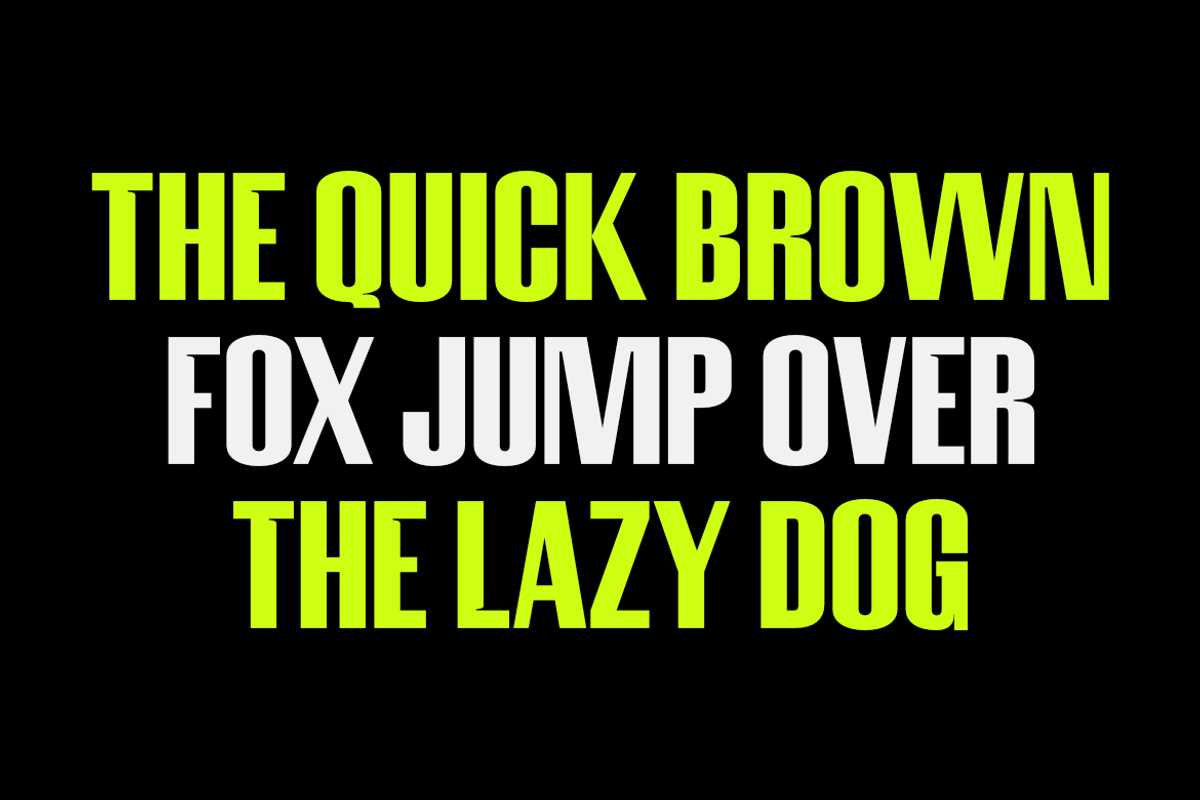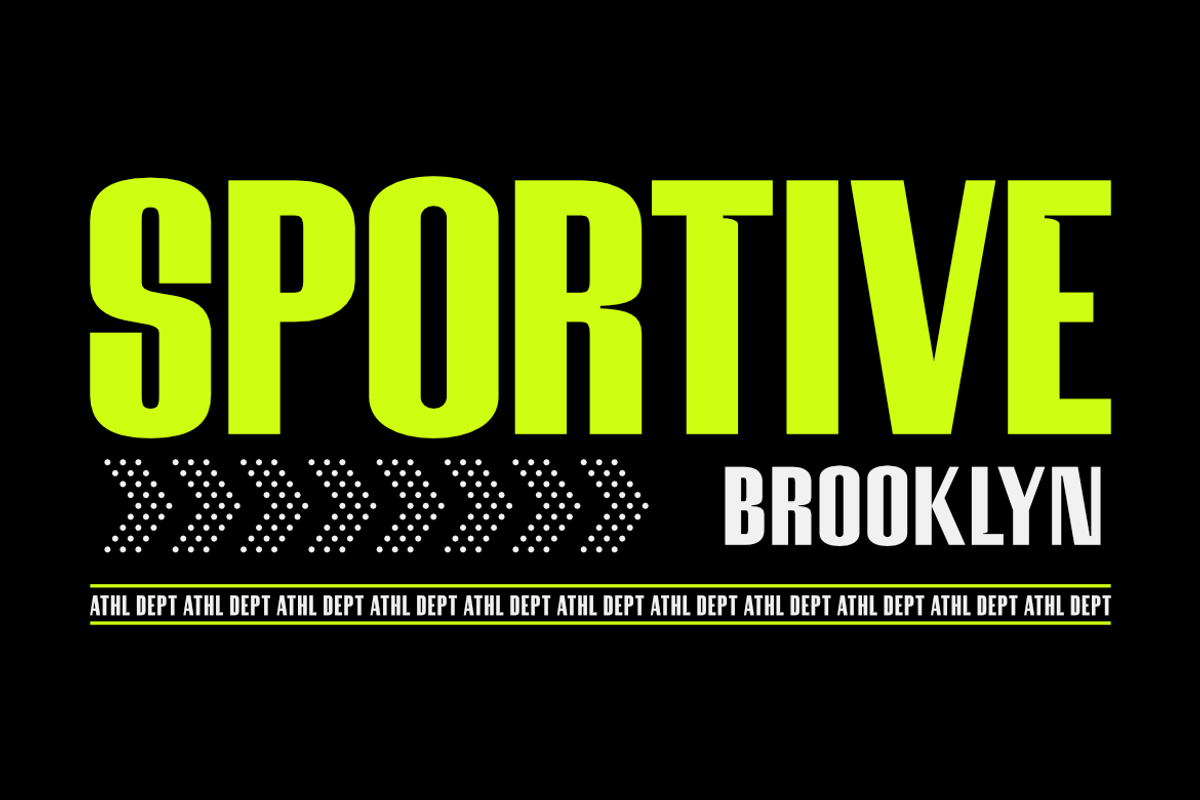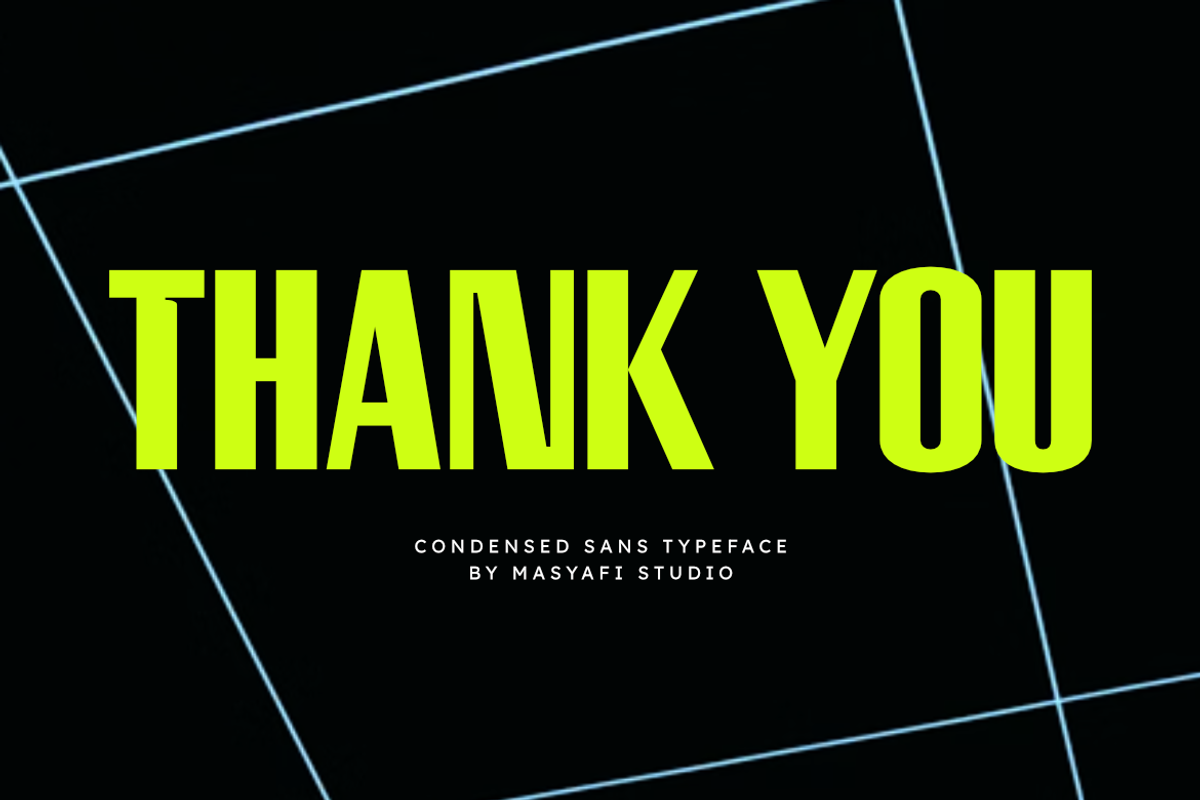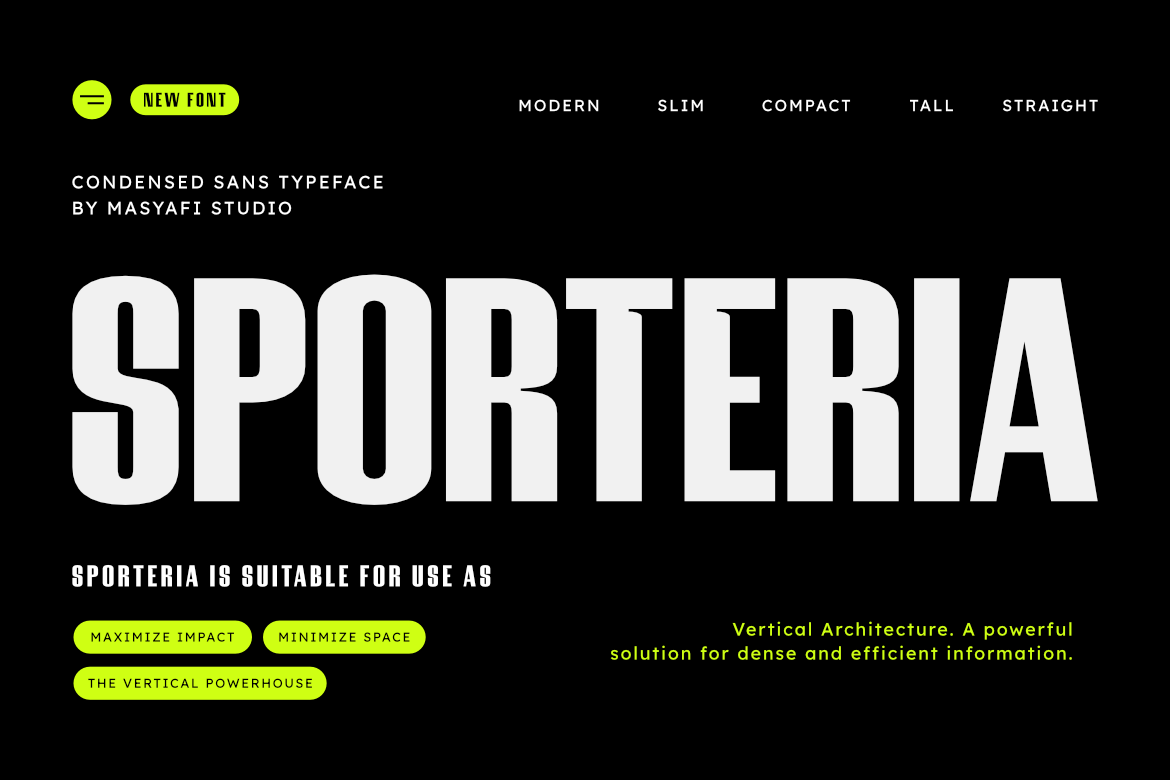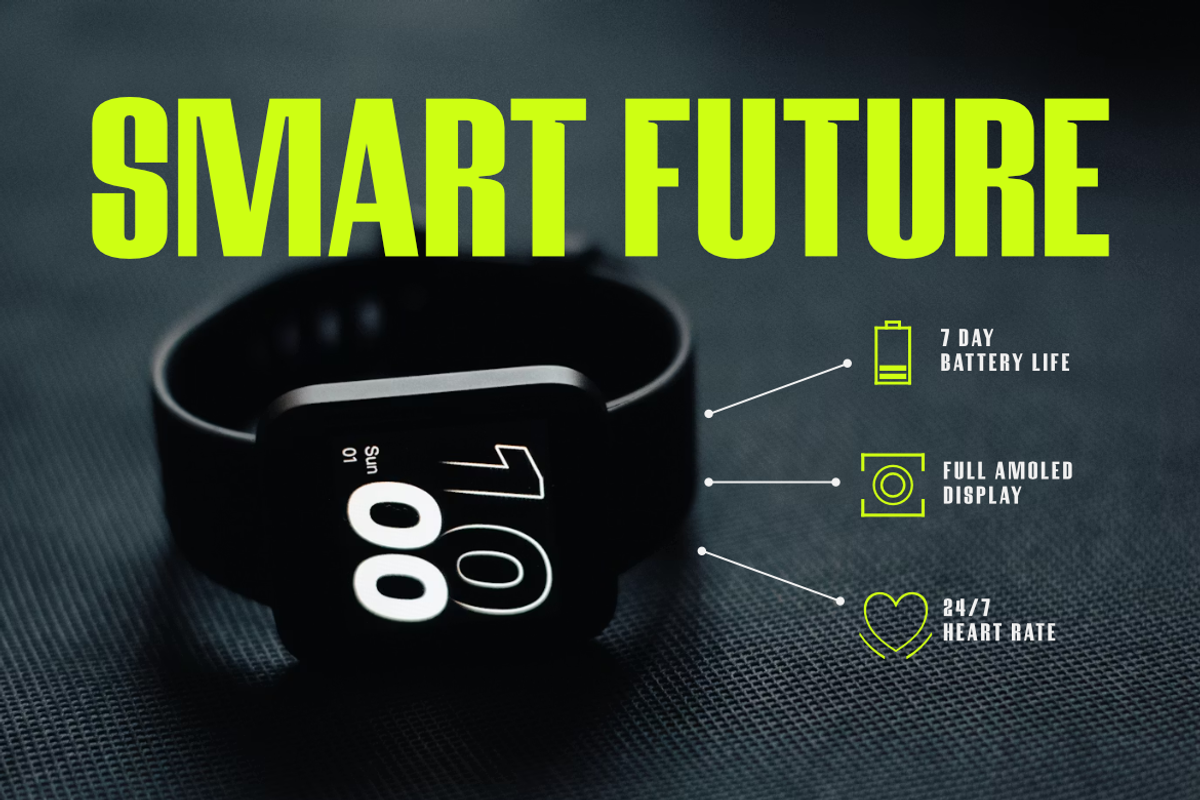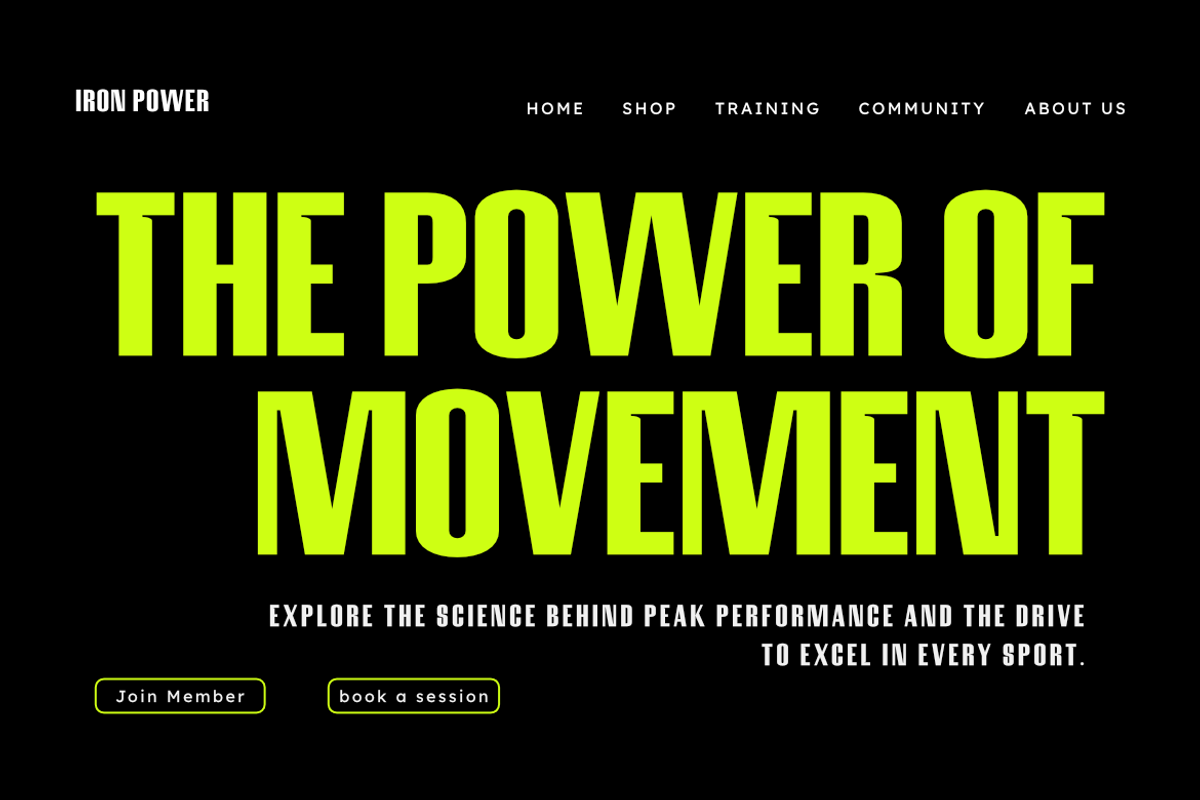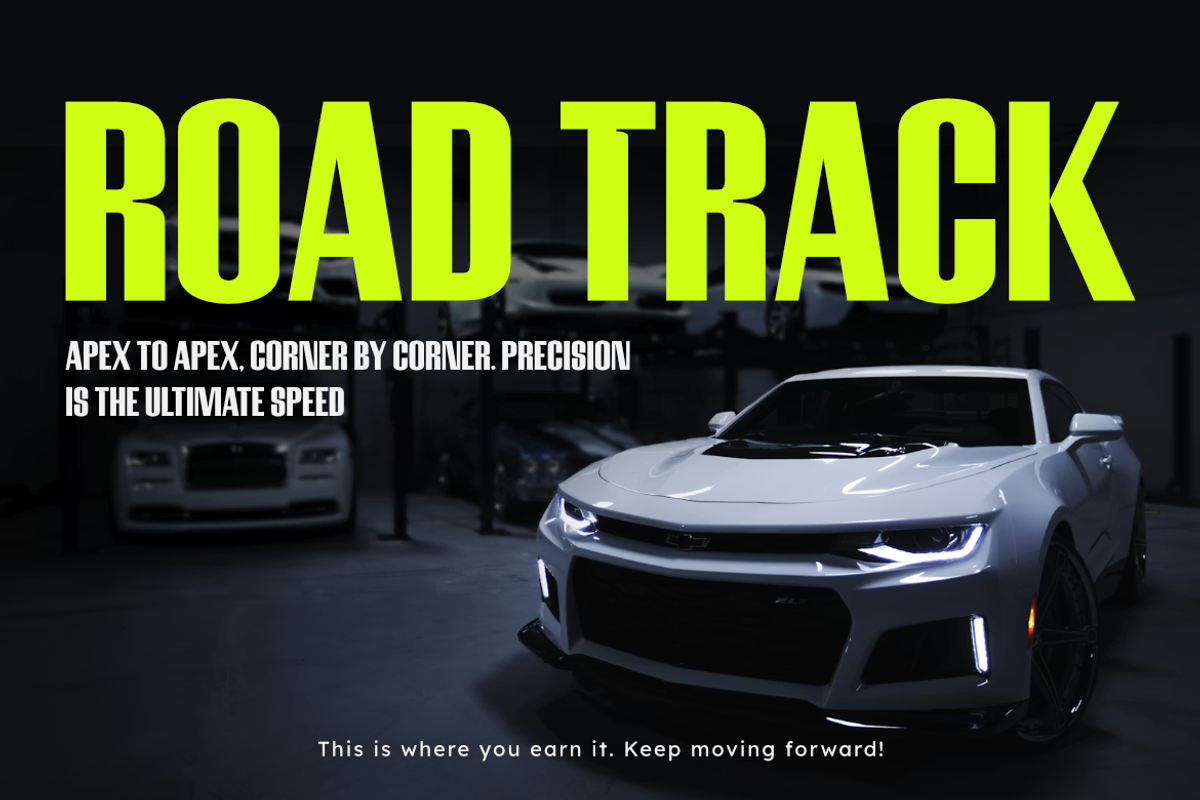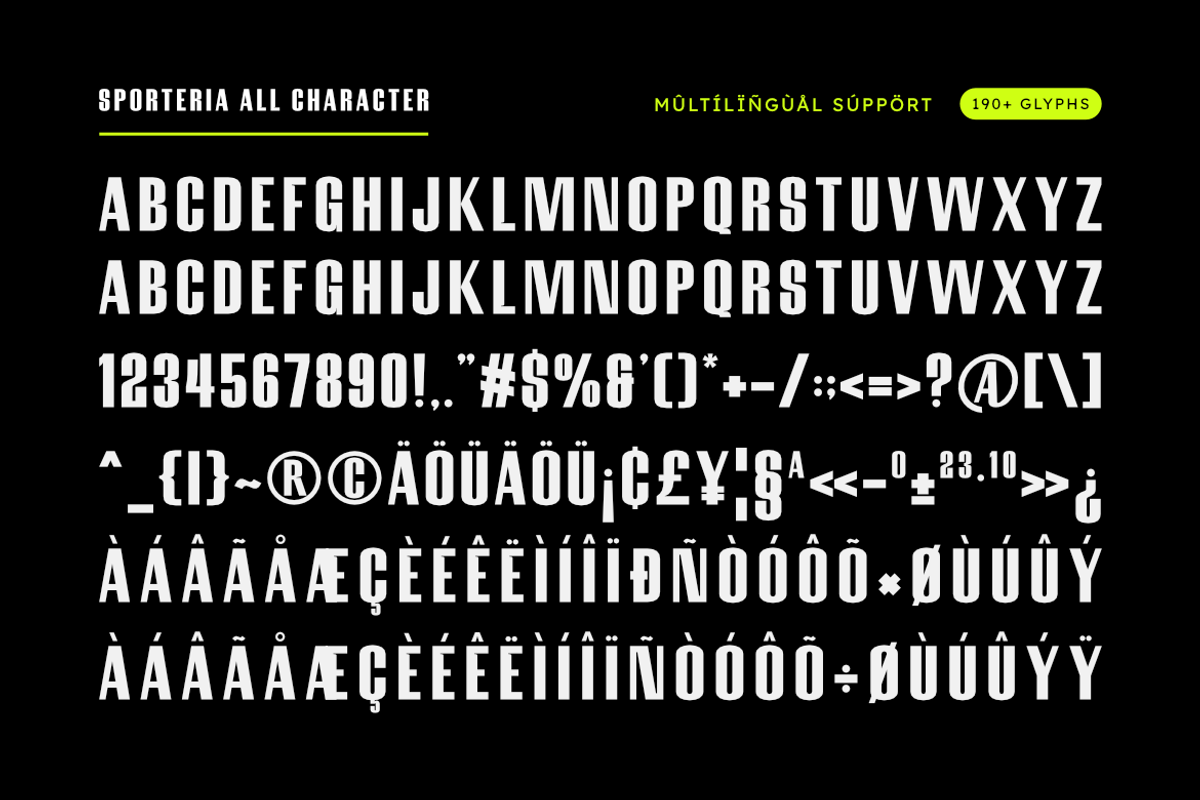
Sporteria - Modern Sans Display Font
Sporteria is a condensed sans typeface designed with a bold vertical presence, slim proportions, and a compact structure that makes every layout look powerful and efficient. Inspired by modern athletic branding and space-saving typography, Sporteria delivers maximum impact while minimizing horizontal space — perfect for strong headlines and tall display compositions.
With its tall architecture and clean, straight shapes, this font becomes a powerhouse for posters, sports graphics, apparel, editorial titles, fitness branding, and any design that demands high visibility in limited space. Sporteria blends strength, clarity, and modern aesthetics into one versatile typeface.
Perfect for
- Sports branding & athletic posters
- Magazines & editorial headlines
- Vertical layouts & narrow spaces
- Modern advertising & bold campaigns
- Social media graphics & YouTube thumbnails
- Condensed sans style
- Slim & tall proportions
- Clean, modern, and compact design